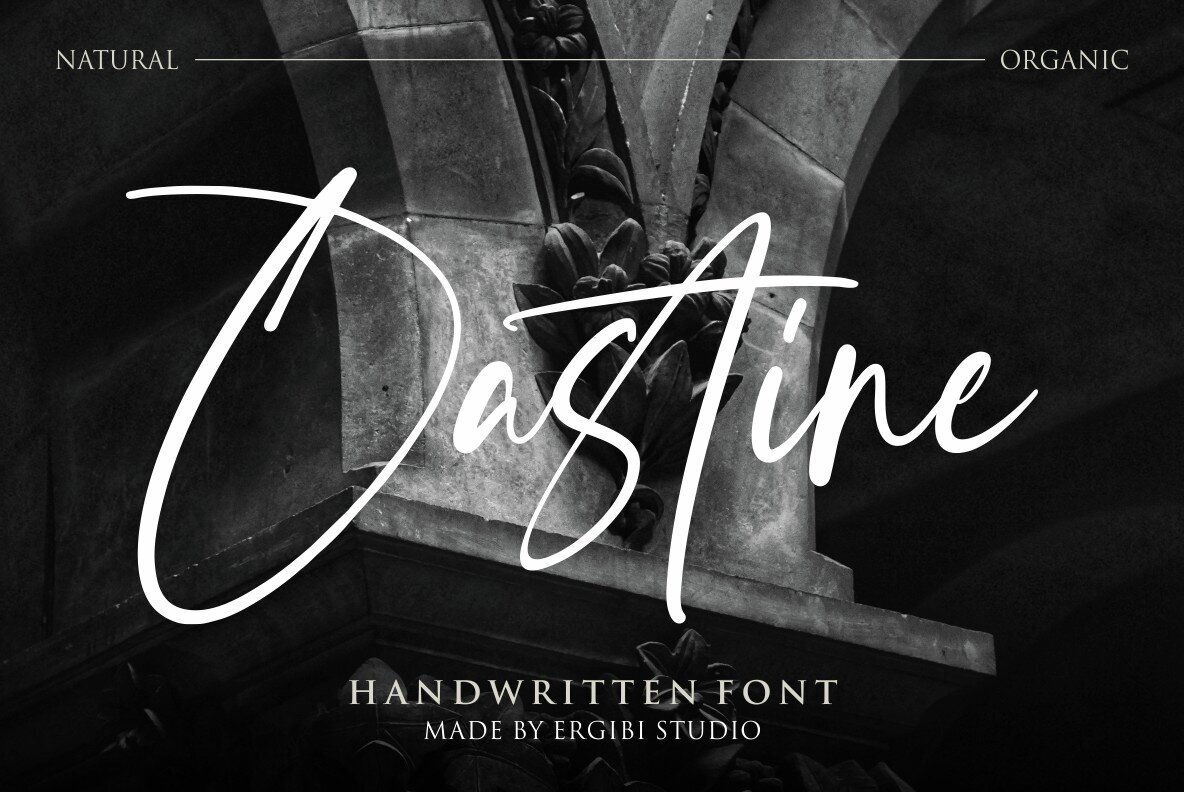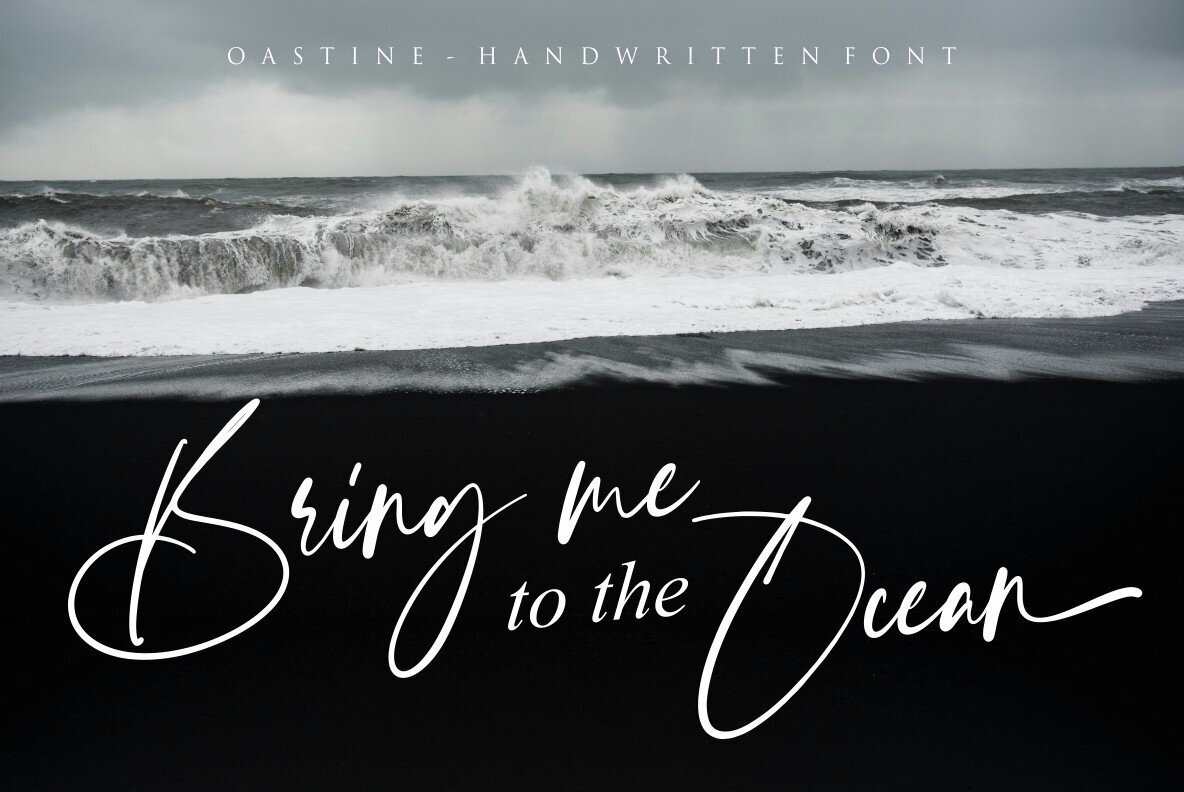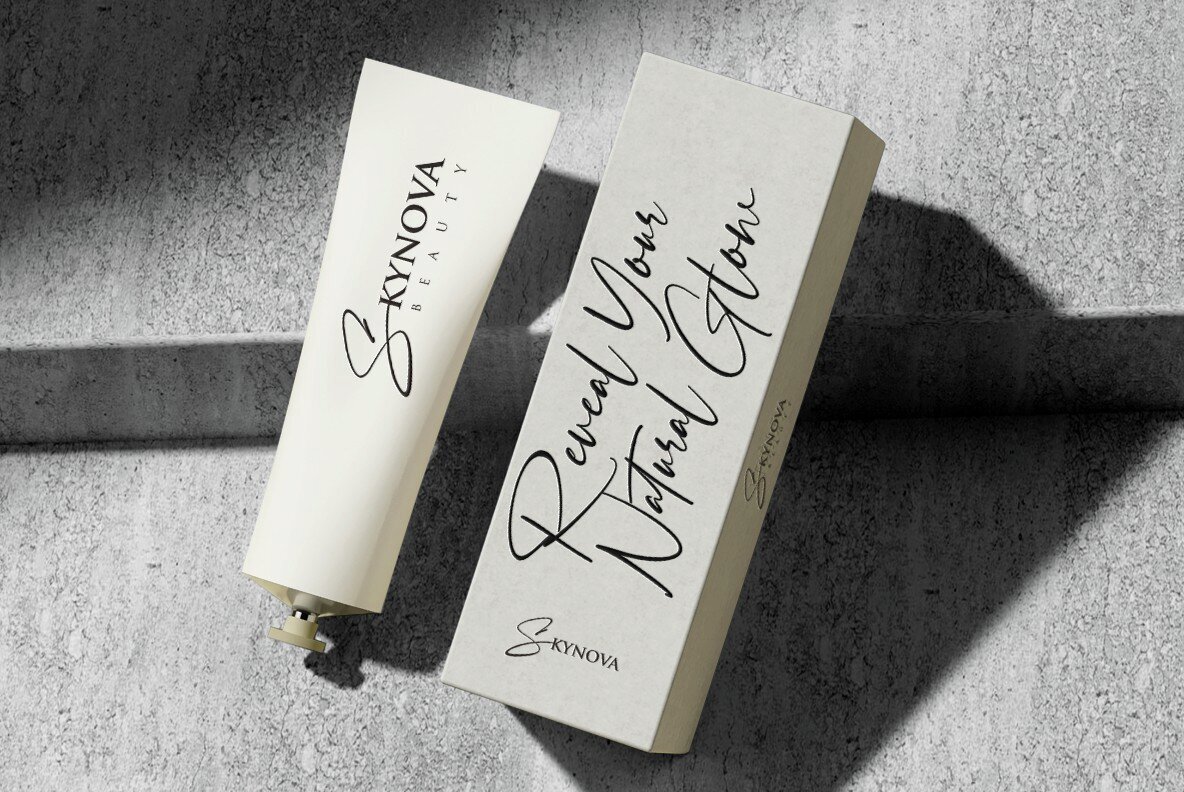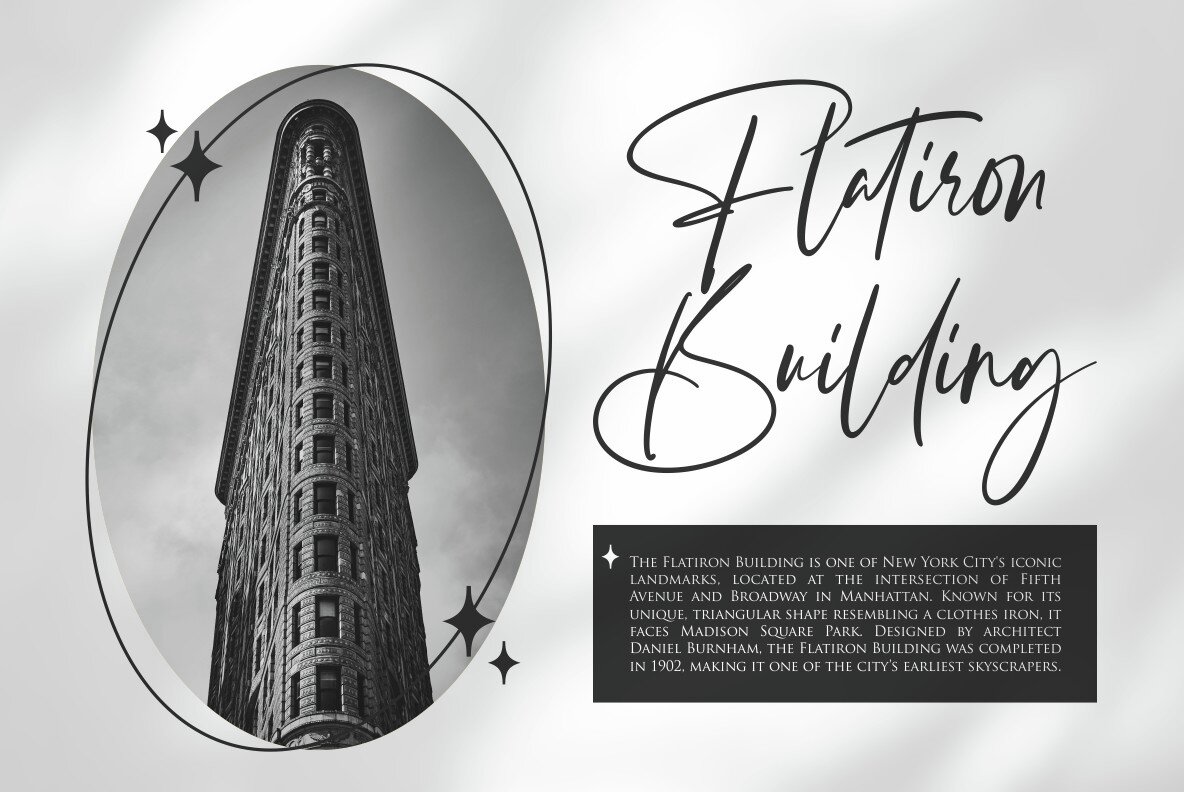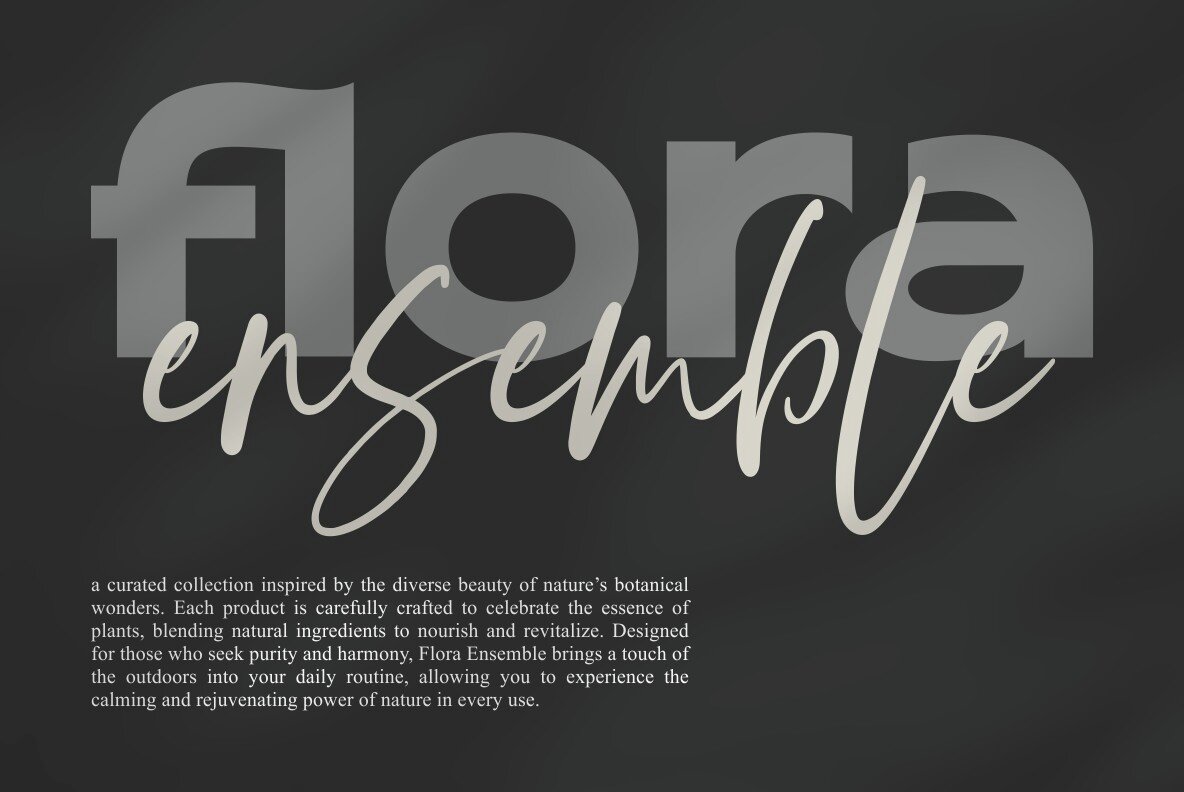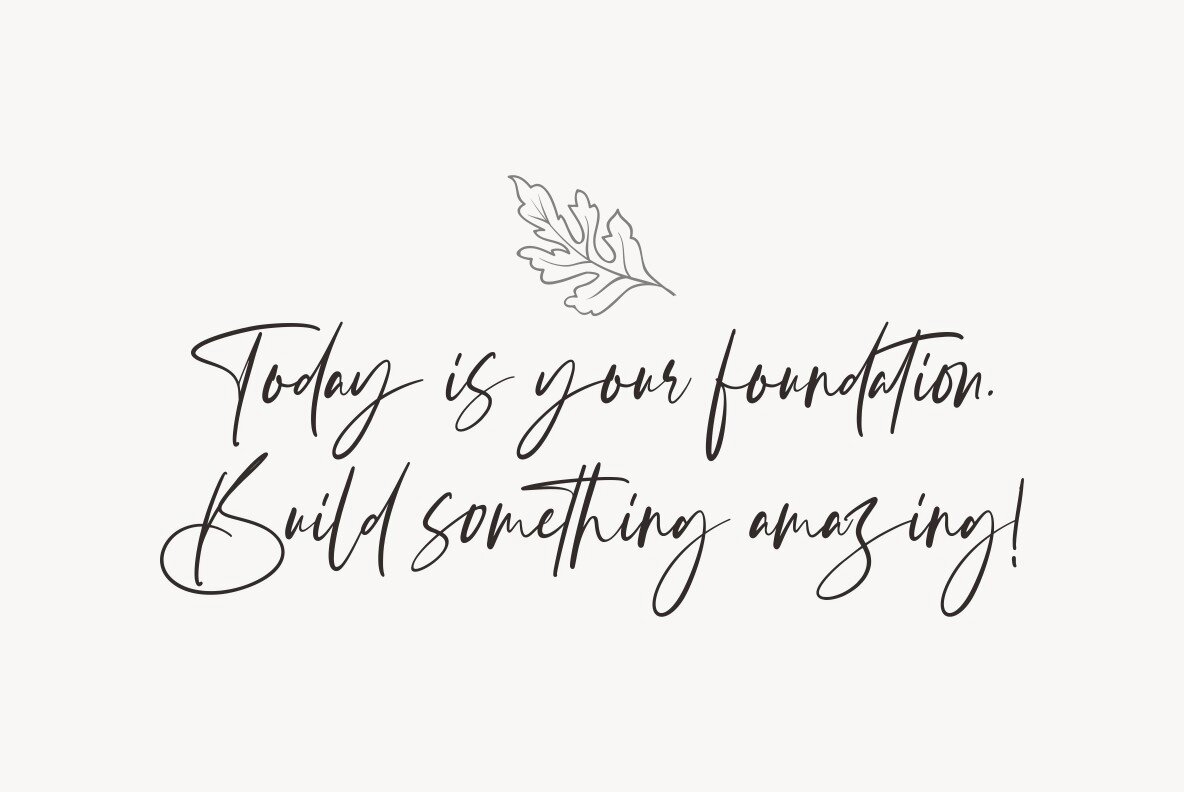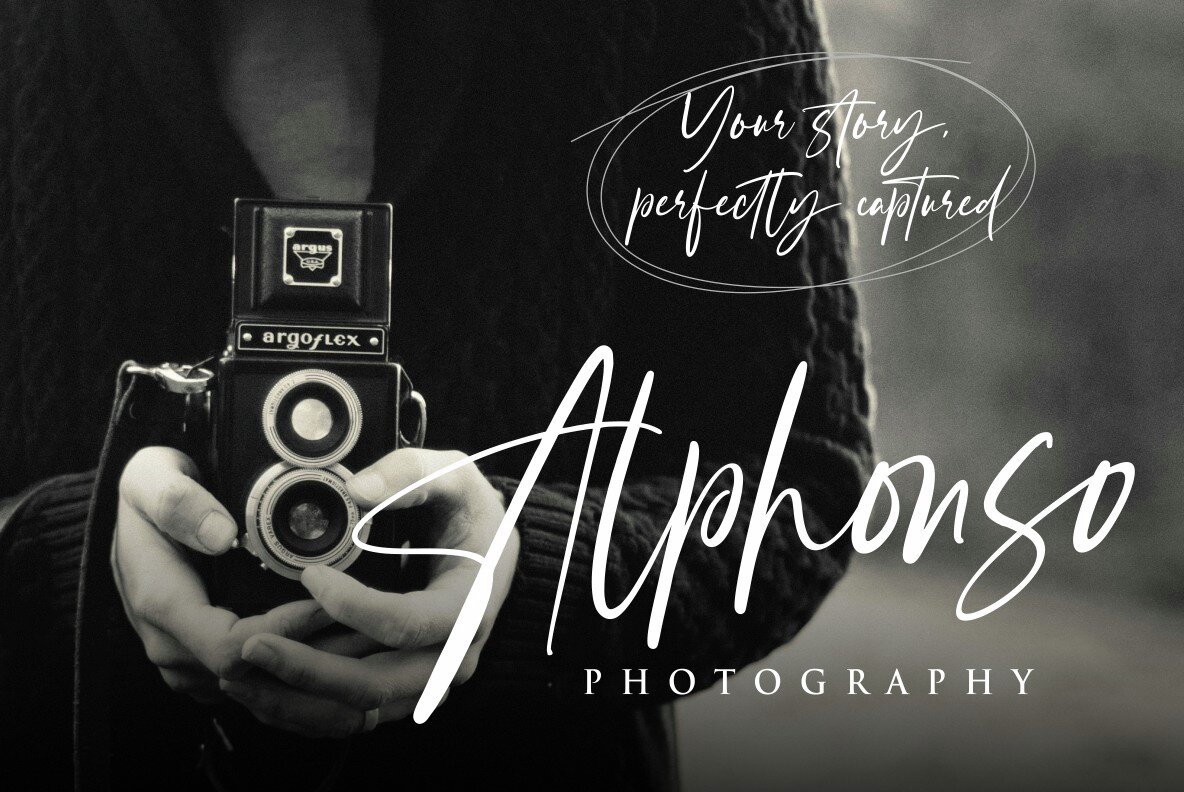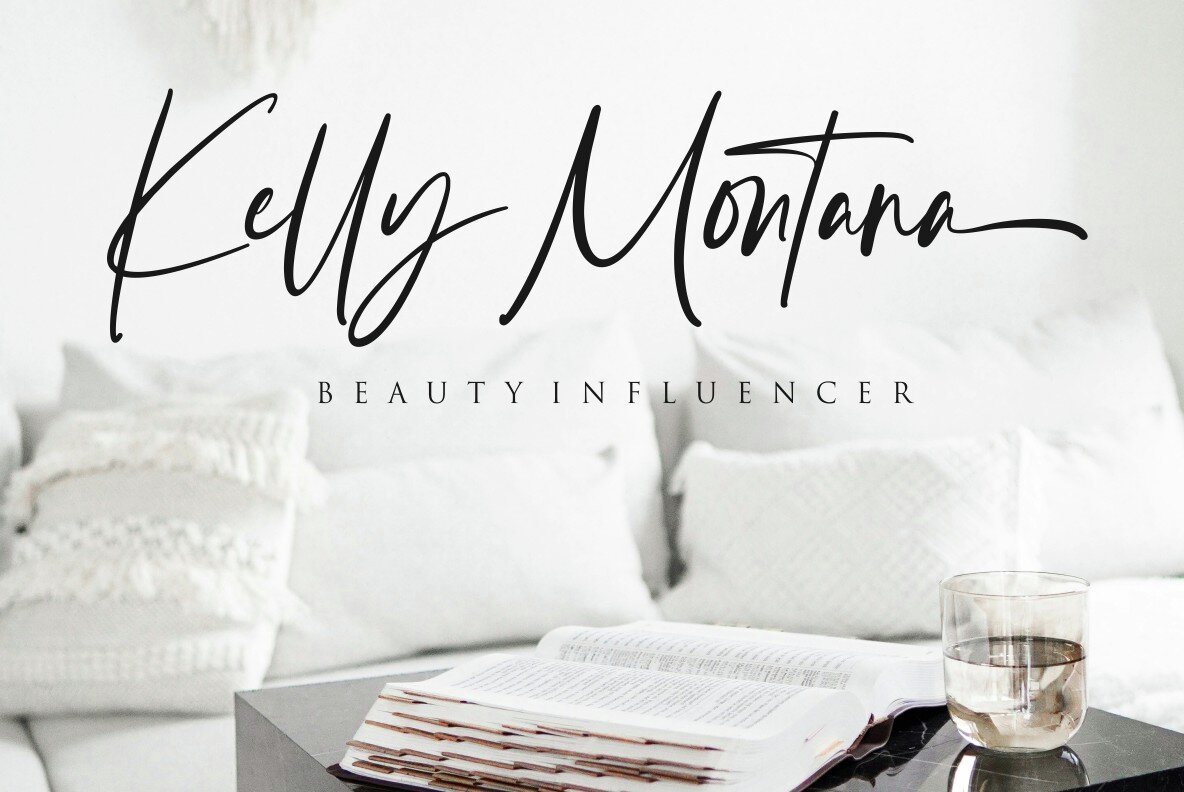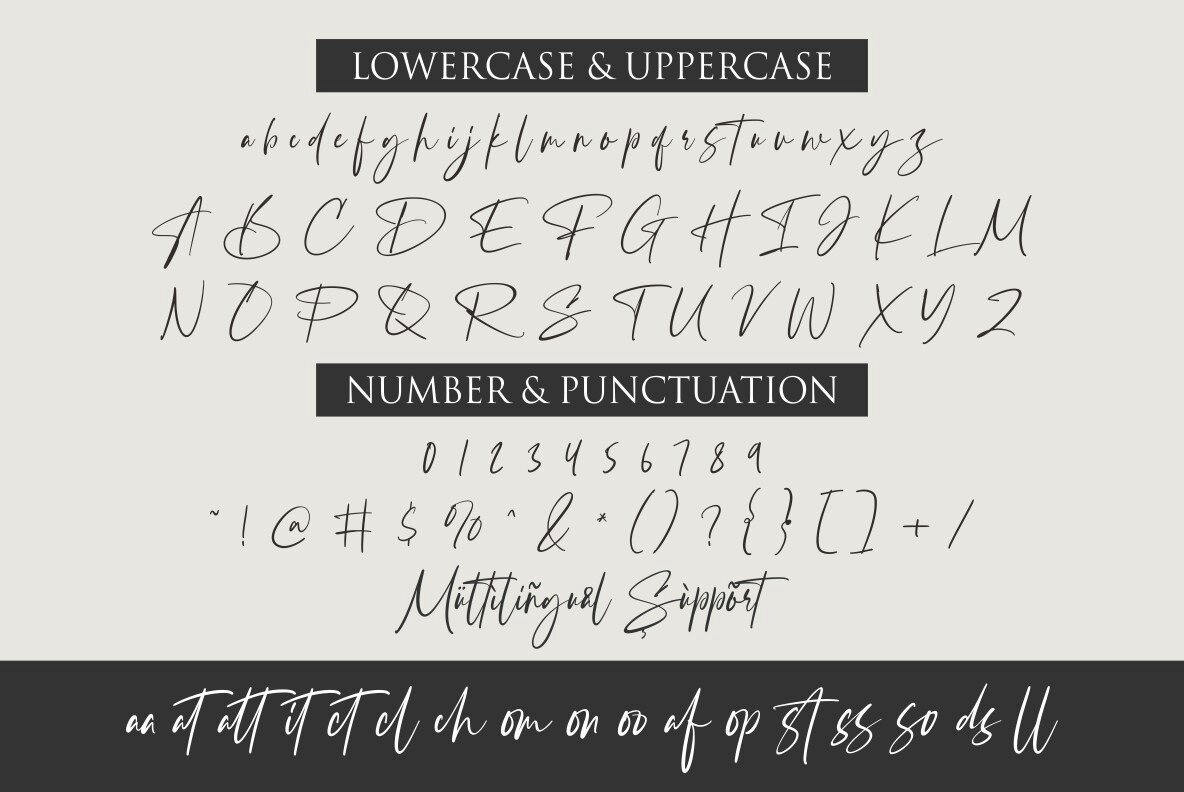
Oastine Font
Oastine
Oastine handwriting brings warmth and an organic feel to your designs. Each letter flows naturally with smooth and gentle strokes, capturing the charm of hand-drawn script. Ideal for invitations, journals, branding, and packaging, this font infuses a human touch that is both authentic and expressive. Oastine combines the individuality of hand lettering with the practicality of a digital font, making it a perfect choice for adding character and elegance to any creative project.
Features include standard glyphs, ligatures, and support for international accents, ensuring versatility across various international projects. Oastine is compatible with both PC and Mac, allowing for simple installation and ease of use, making it the perfect addition to any designer's toolkit.